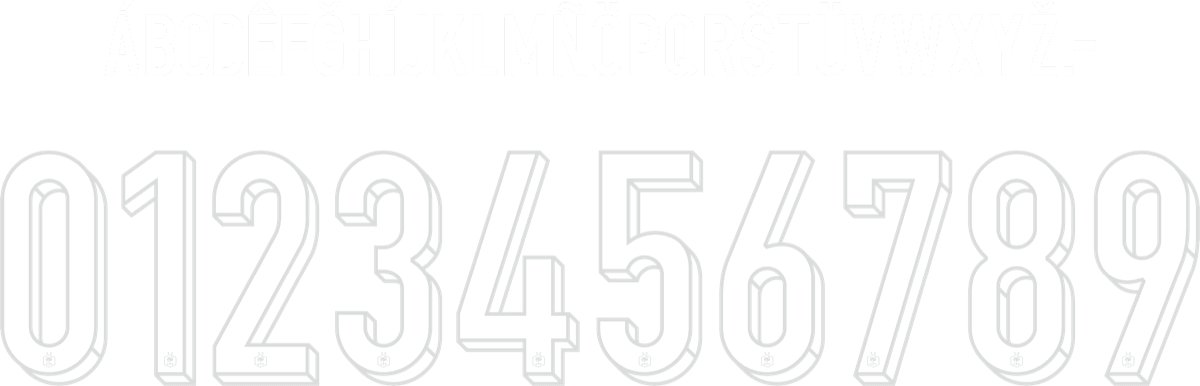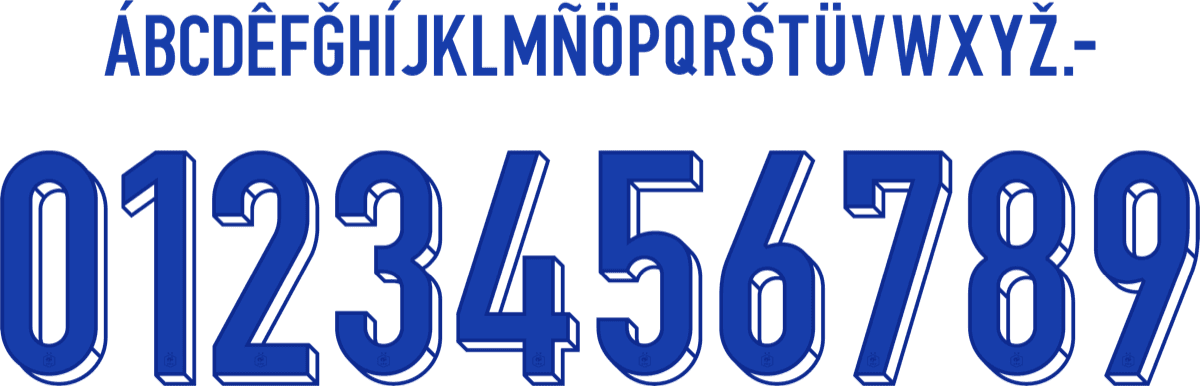
France EURO 2024
France National Team · 2024
A set inspired by the France National Team 2024 jersey typography, with a name and number system redrawn for print and screen. Original curves, consistent weight and a complete 0–9 numeral family.
Jersey sets focus on uppercase + numerals; the glyph map shows exactly what this set includes.